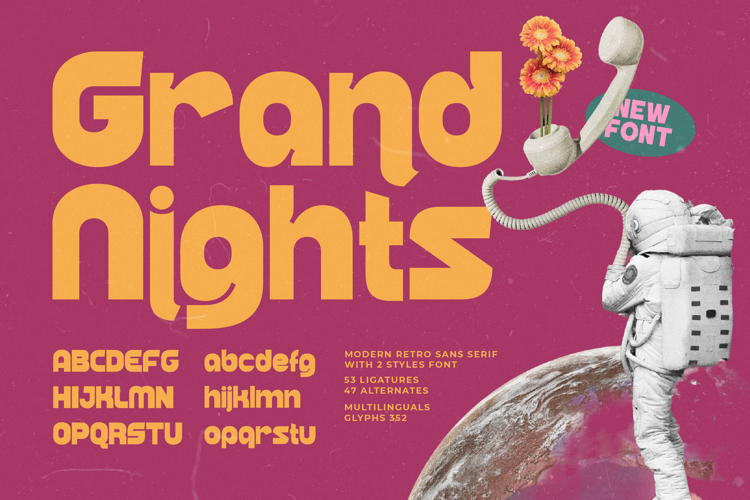
Grand Nights - Modern Retro Sans Serif
Elevate your designs with a touch of timeless cool. Introduce Font Grand Nights - Modern Retro Sans Serif , a distinct sans serif that masterfully blends nostalgic charm with contemporary sophistication. Its bold, rounded aesthetic creates an immediate visual impact, perfect for making a memorable statement. This typeface delivers a unique personality, ensuring your creative projects stand out with an undeniable modern retro flair.
Discover unparalleled versatility for your brand's voice. Font Grand Nights - Modern Retro Sans Serif is engineered for diverse design needs, offering two distinct styles that adapt effortlessly from playful headlines to impactful branding elements. Its robust letterforms and clean lines ensure maximum readability while exuding a confident, friendly character. This font is a powerful tool for designers seeking to convey both approachability and professional polish.